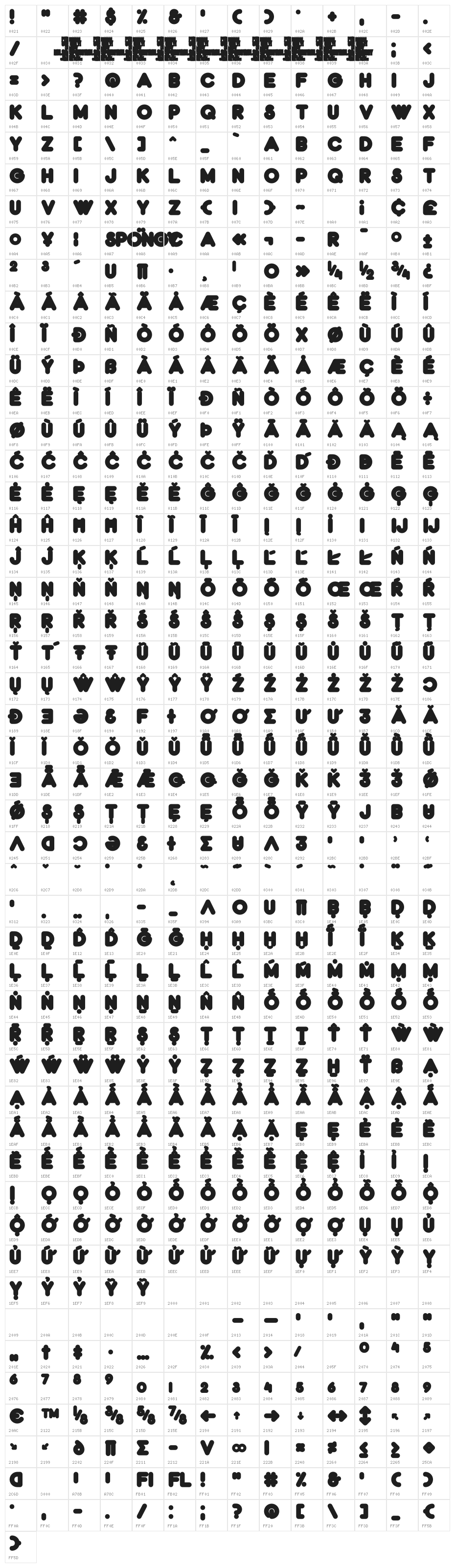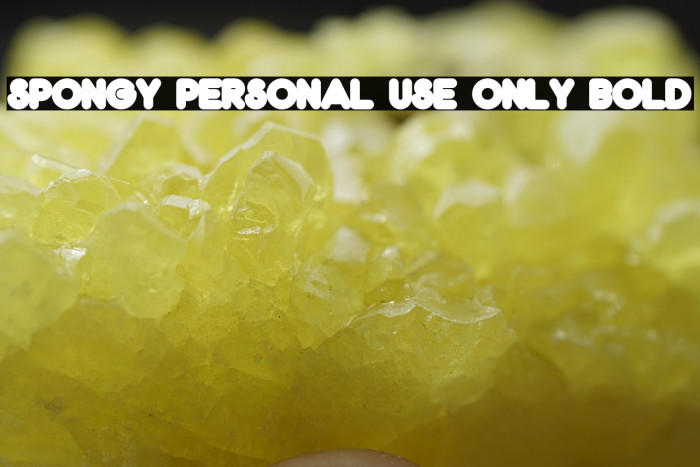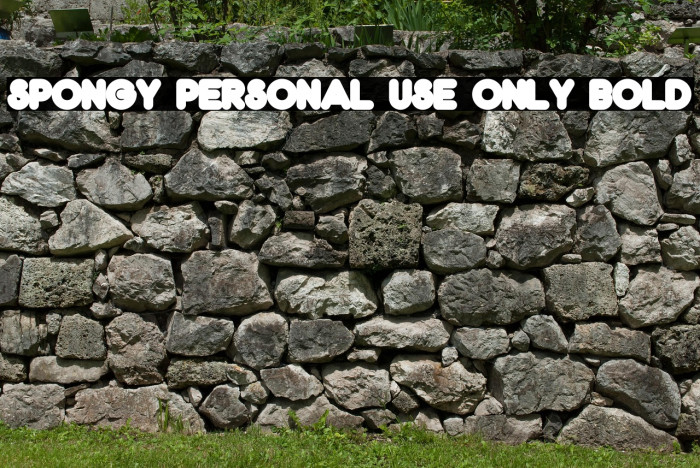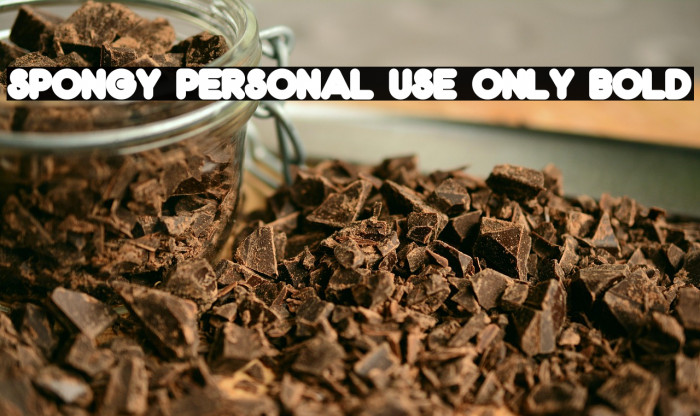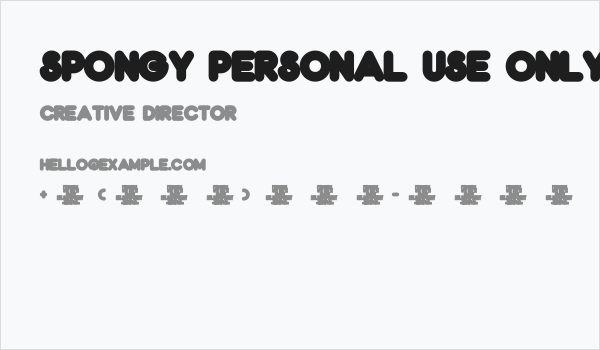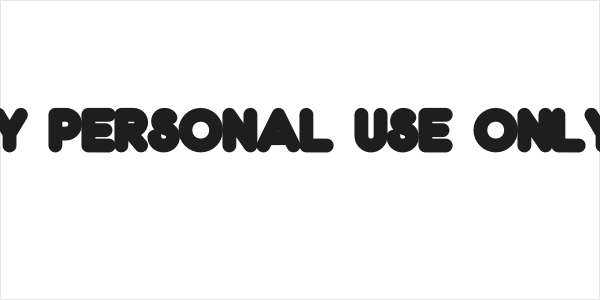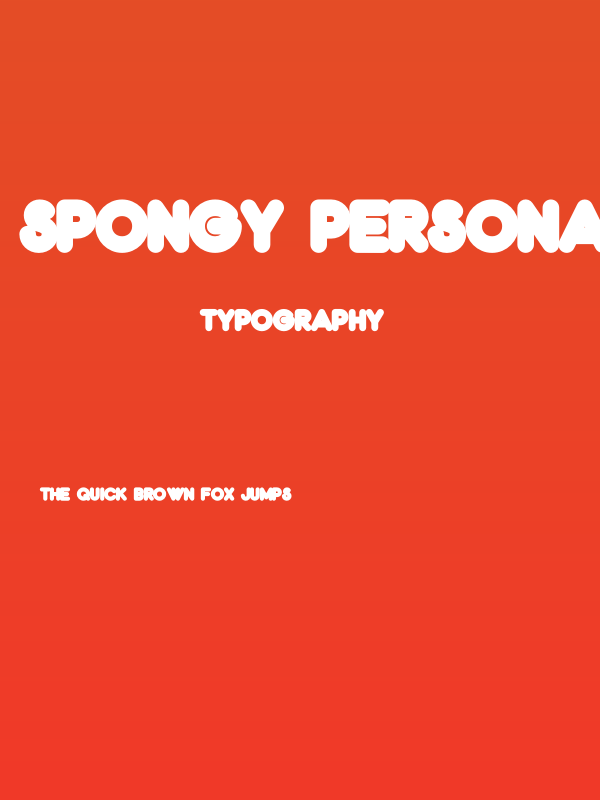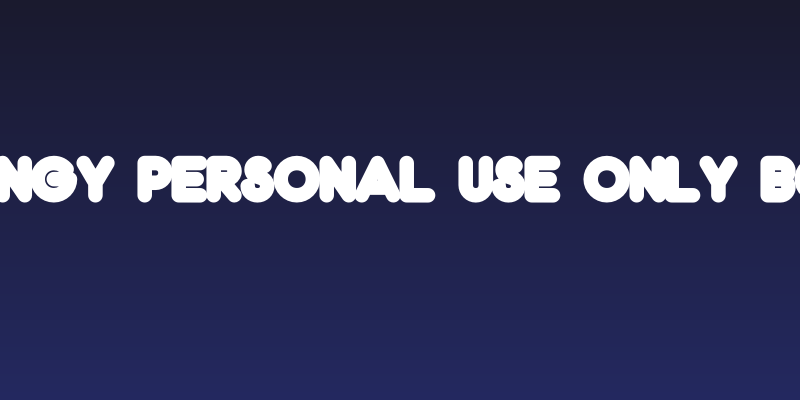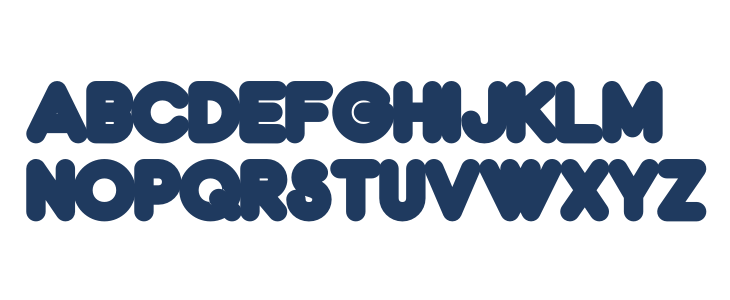
Spongy PERSONAL USE ONLY Bold Font
Spongy PERSONAL USE ONLY Bold Description
This font features a bold, playful design with rounded, bubble-like characters. The letters are thick and uniform, creating a cohesive and visually striking appearance. The style is reminiscent of retro or pop art aesthetics, with a modern twist. The characters are evenly spaced, contributing to a clean and organized look. The font's unique design makes it stand out, with its boldness and rounded edges adding a sense of fun and creativity. It's perfect for projects that require a touch of whimsy and boldness.